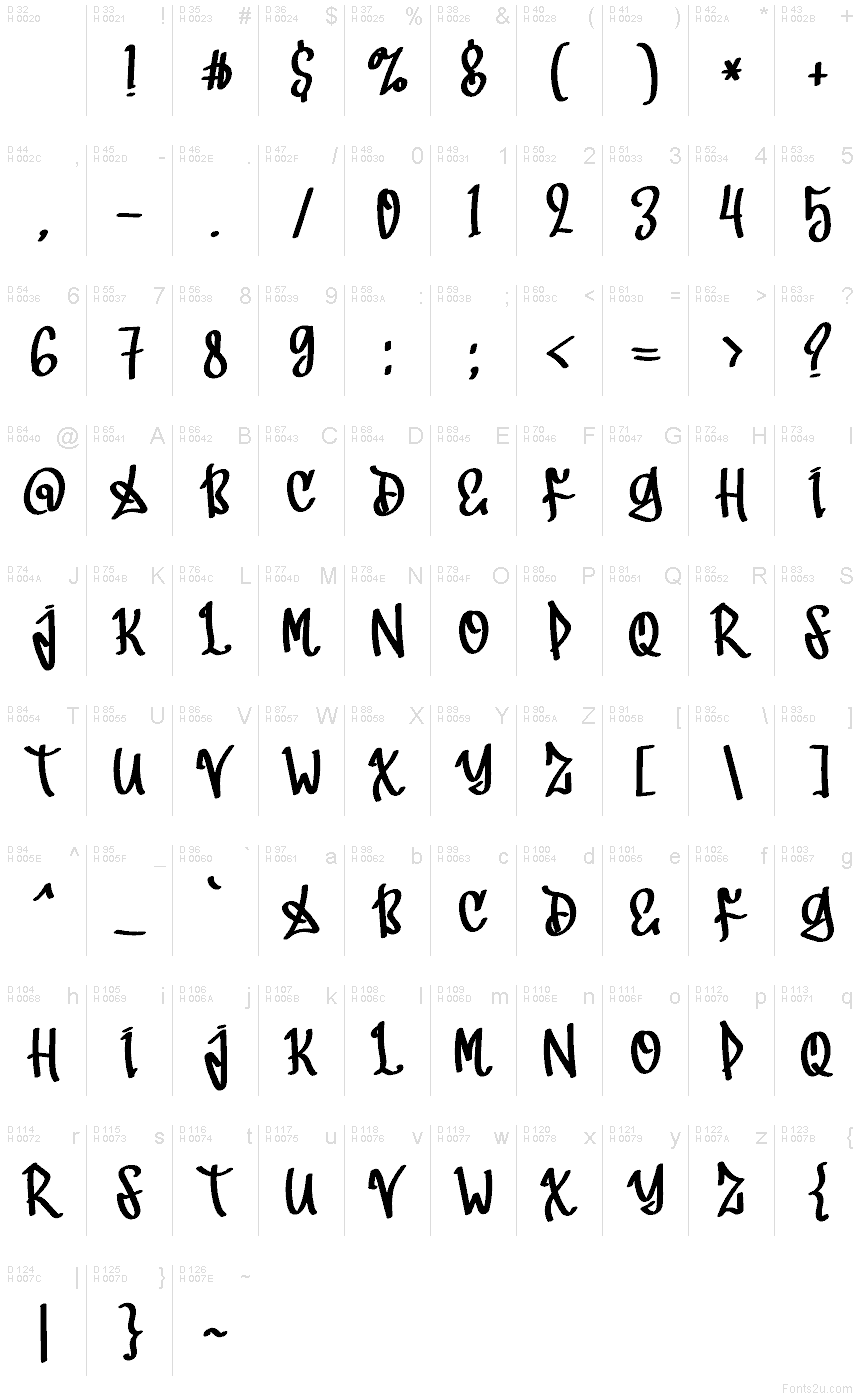
Kids Designer
Kids Designer font by Mr.Soon Design is a free graffiti font. Its brushy, inky strokes swing into loose curls and quick hooks, giving each word a bouncy, hand‑painted energy. Letters run tall and slightly narrow, so lines pack punch without feeling heavy, like chalk scribbles turned street mural-playful, a little messy, and full of motion.
Using Kids Designer, headlines grab attention and feel handmade: great for kids’ event posters, birthday invitations, toy packaging, summer camp flyers, classroom signage, and playful merch. The rhythm stays lively at large sizes, while short phrases still read clean. Pair this free font with a simple rounded sans for body text to balance the swagger without losing the fun.